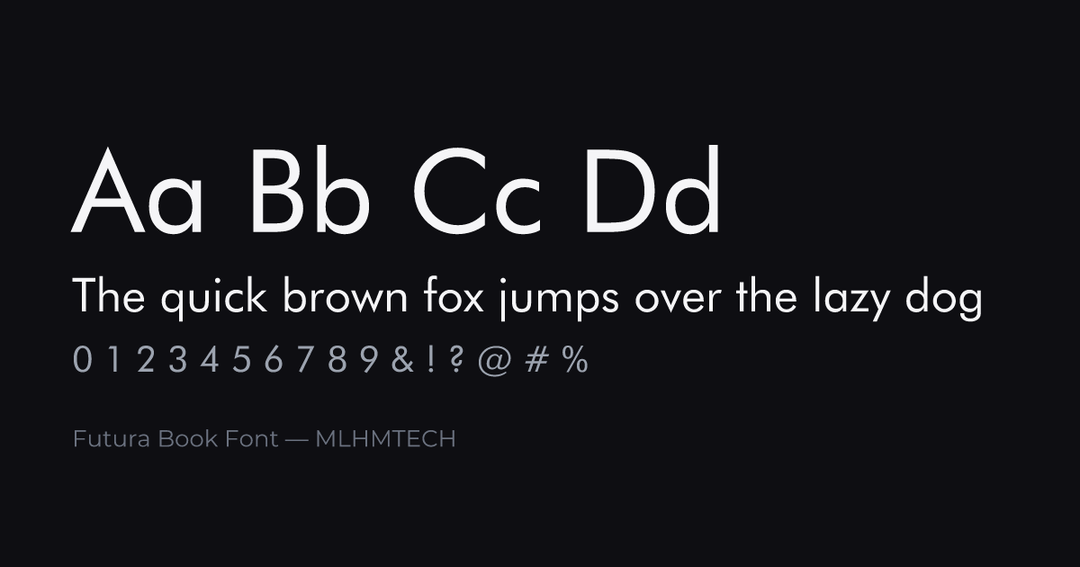
Futura Book Font
Futura Book is a classic geometric sans-serif font, perfect for clean, modern designs and video titles. This TTF file works across all major platforms.
Futura Book is a timeless geometric sans-serif typeface, known for its clean lines and modern appearance. It is versatile and suitable for a wide range of creative projects, from logos and branding to video titles and motion graphics.
Whether you are creating a minimalist poster, an elegant wedding invitation, or a professional video intro, Futura Book adds a touch of sophistication and clarity to your work.